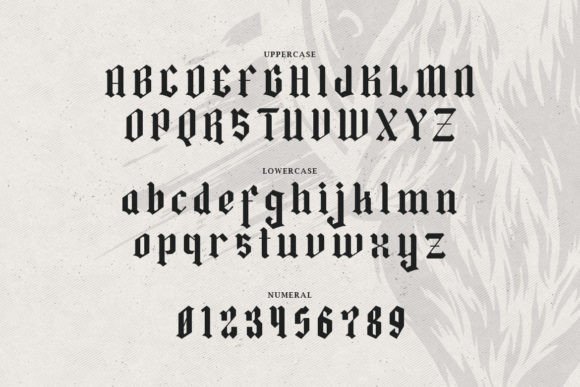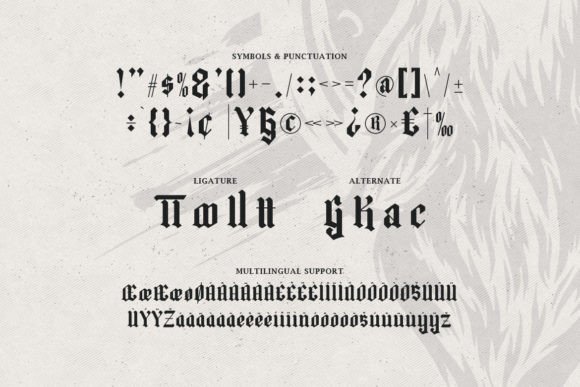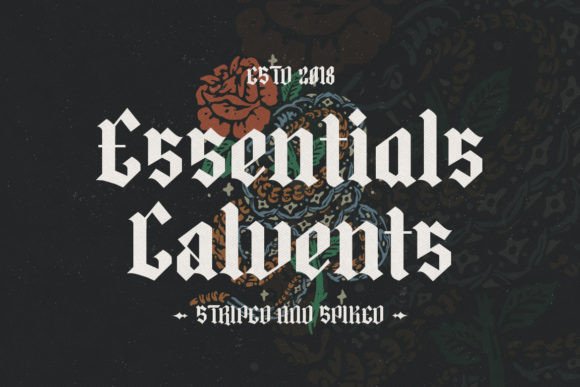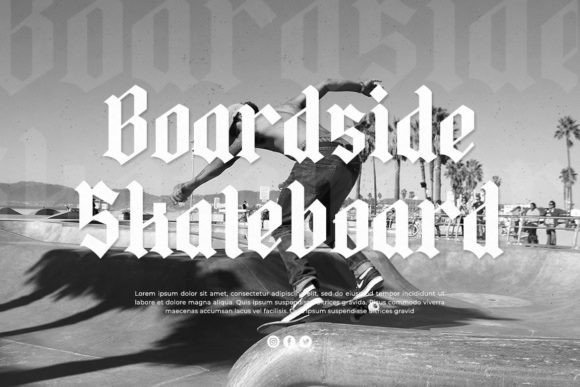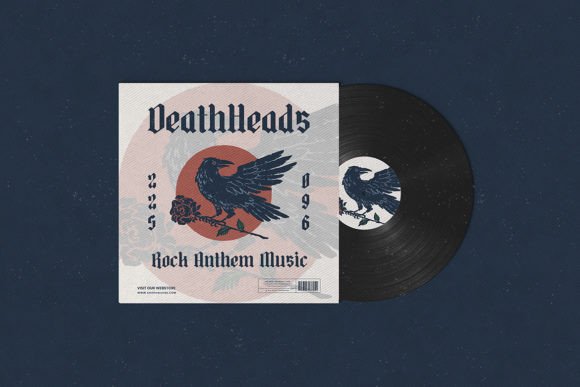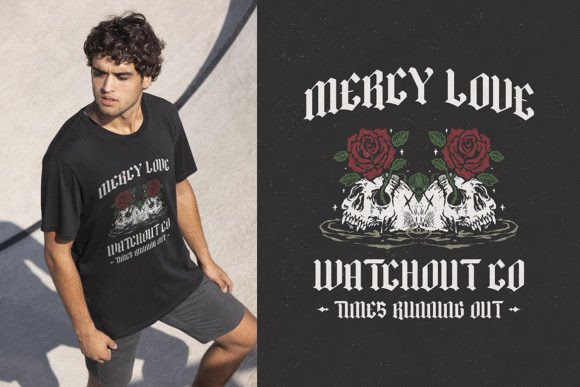
Introduction to Lonemore Font
Experience the fusion of tradition and modernity with “Lonemore” – a modern blackletter font that pushes the boundaries of classic typography.
With its sleek and contemporary twist on the traditional blackletter style, “Lonemore” captivates with its elegant and bold letterforms Each character balances the intricacies of blackletter with a modern touch, resulting in a unique and versatile font that stands out in any design.